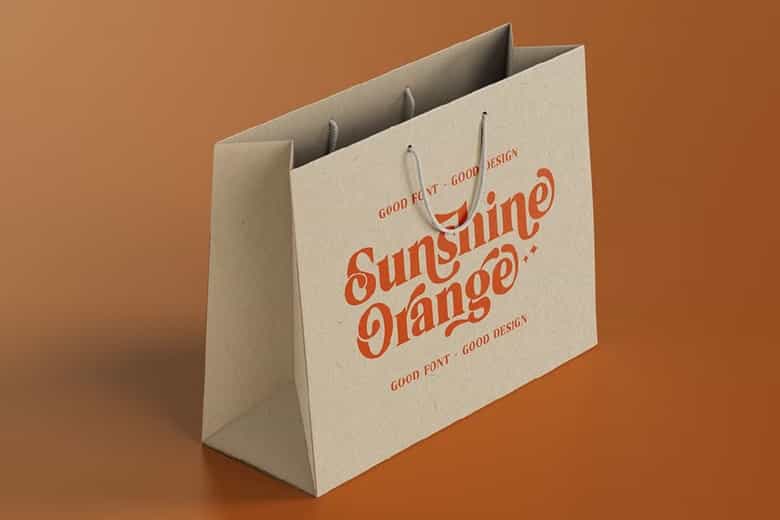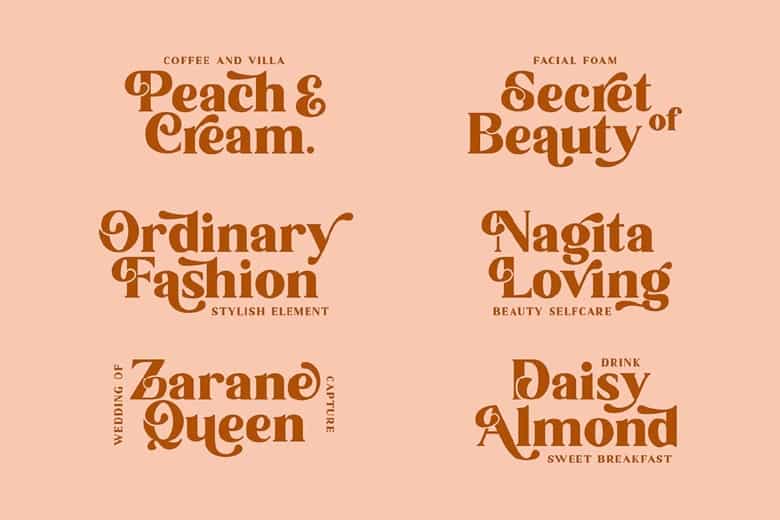
Aveline is a new modern retro serif font. This font can be best suited for photography, watermark, social media marketing, advertisements, logos and branding, invitations, product designing, labels, stationery, product packaging, special occasions and events and many more.